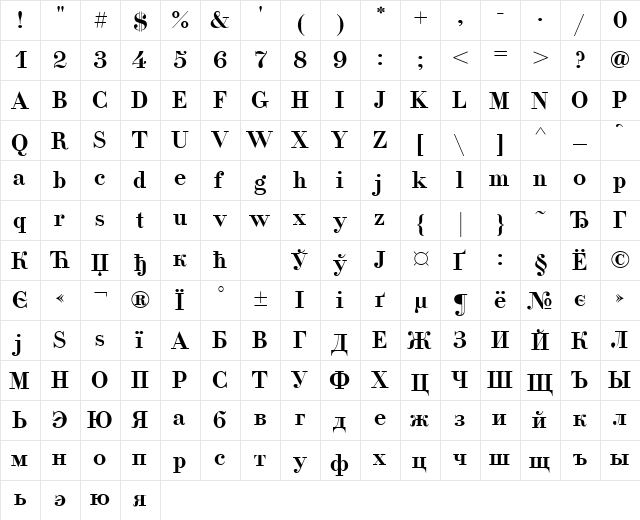
PG_Didona_Cyr illic
Design Context for PG_Didona_Cyr Typeface
PG_Didona_Cyr takes a measured approach to typography — its balanced proportions and neutral character make it a reliable workhorse for both digital and print work.